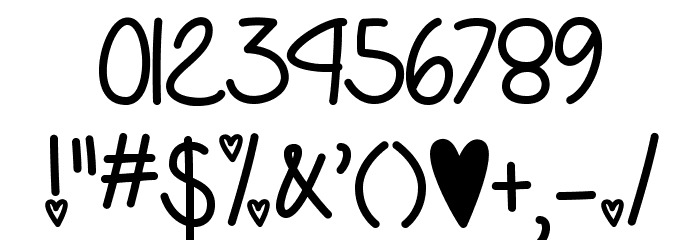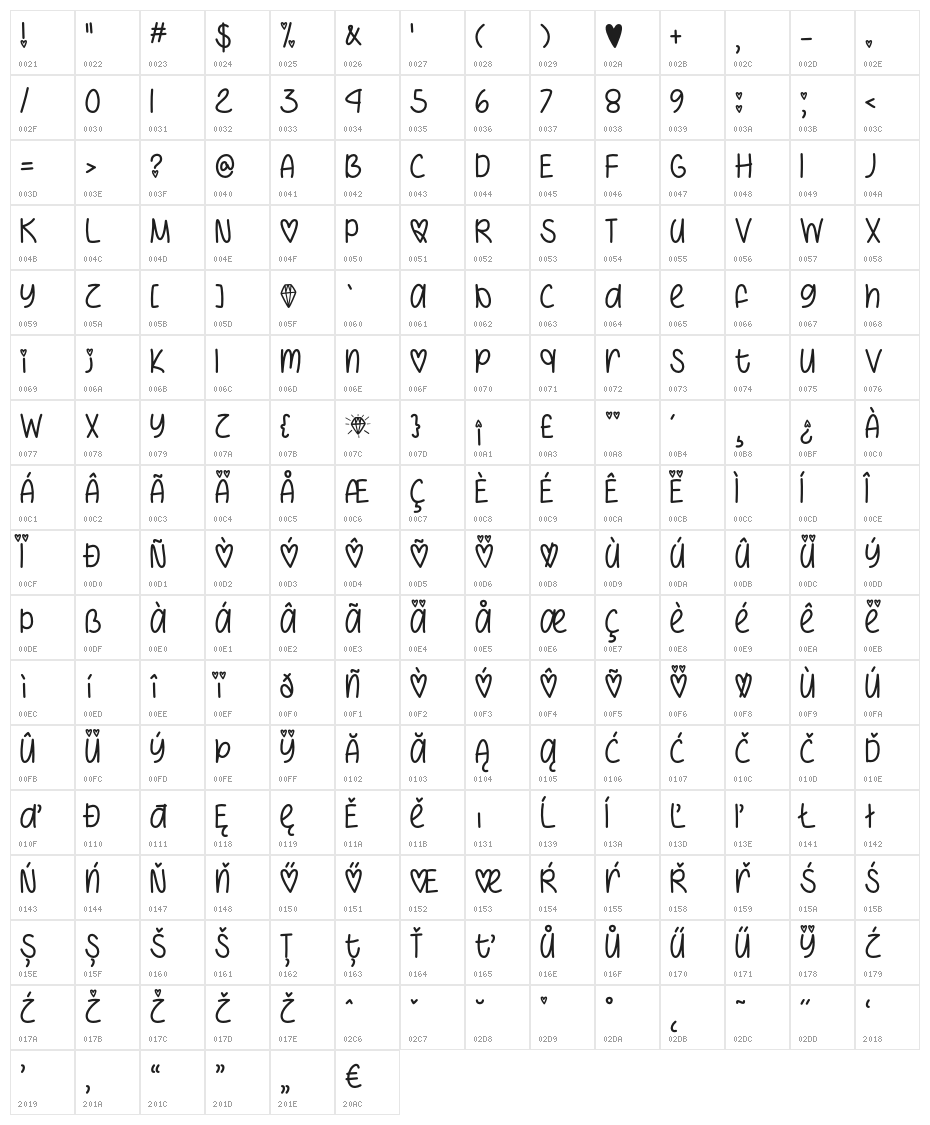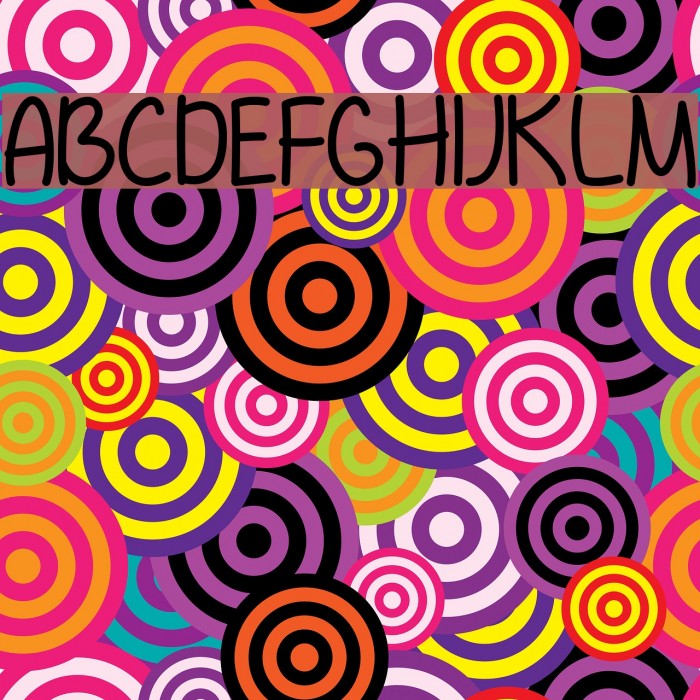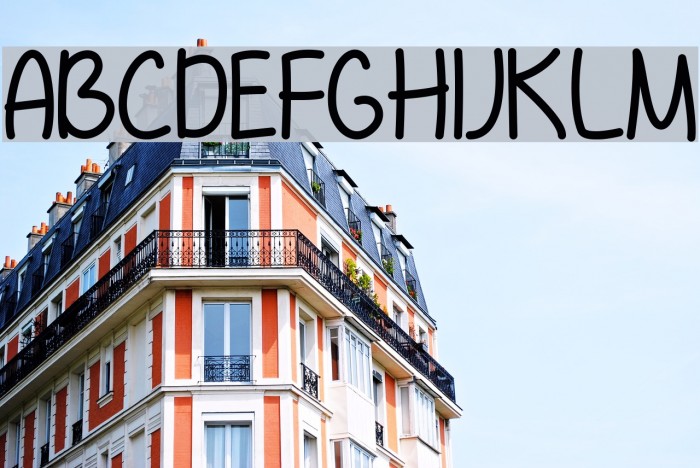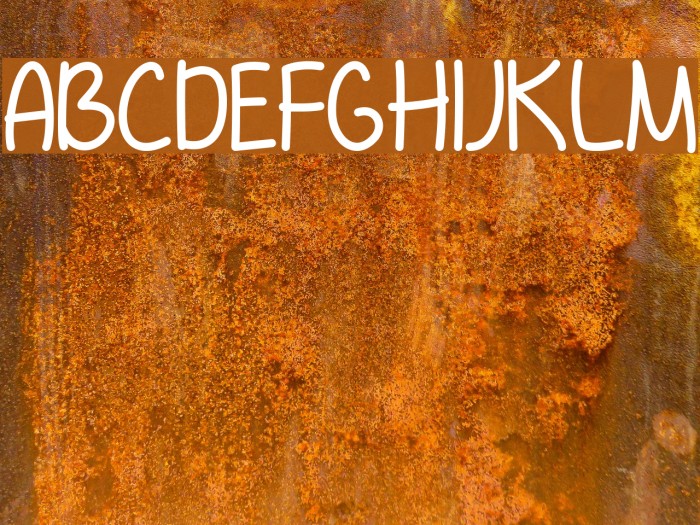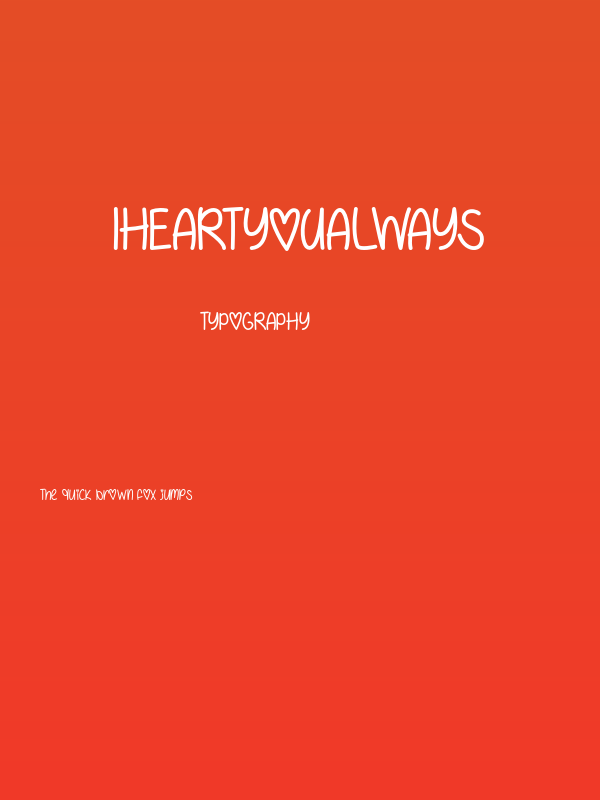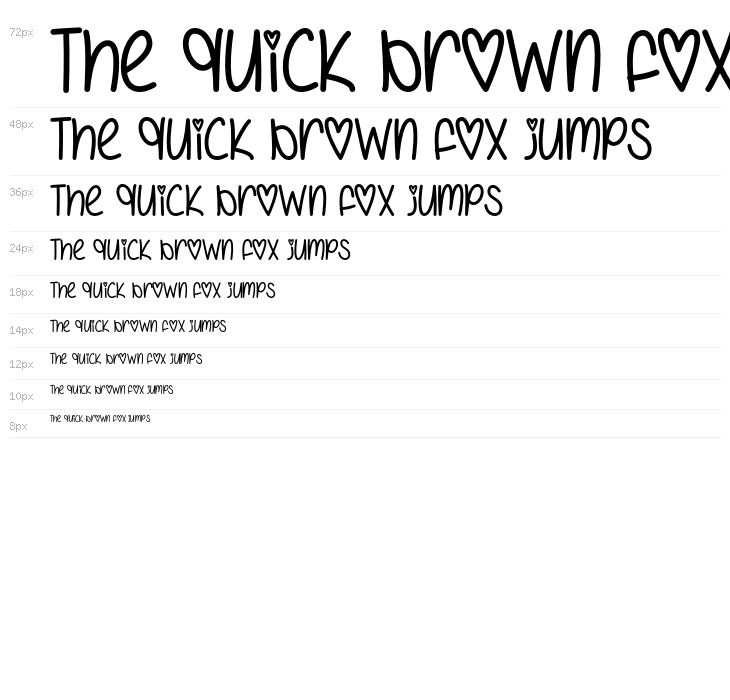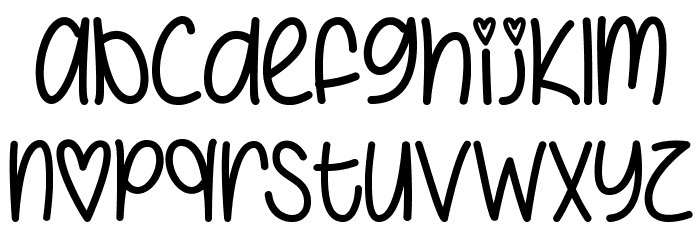
IHeartYouAlways Font
IHeartYouAlways Description
This playful and whimsical font features a handwritten style with a unique twist. Each character is crafted with a smooth, flowing line that gives it a casual and friendly appearance. Notably, the font incorporates heart shapes within certain letters, adding a touch of romance and charm. The overall design is consistent, with rounded edges and a slightly irregular baseline that enhances its informal and approachable feel. The numerals and special characters maintain the same playful aesthetic, making this font versatile for various creative projects.
| Overall Style | Whimsical |
| Proposed Projects | Ideal for greeting cards, wedding invitations, love notes, and playful branding projects. |